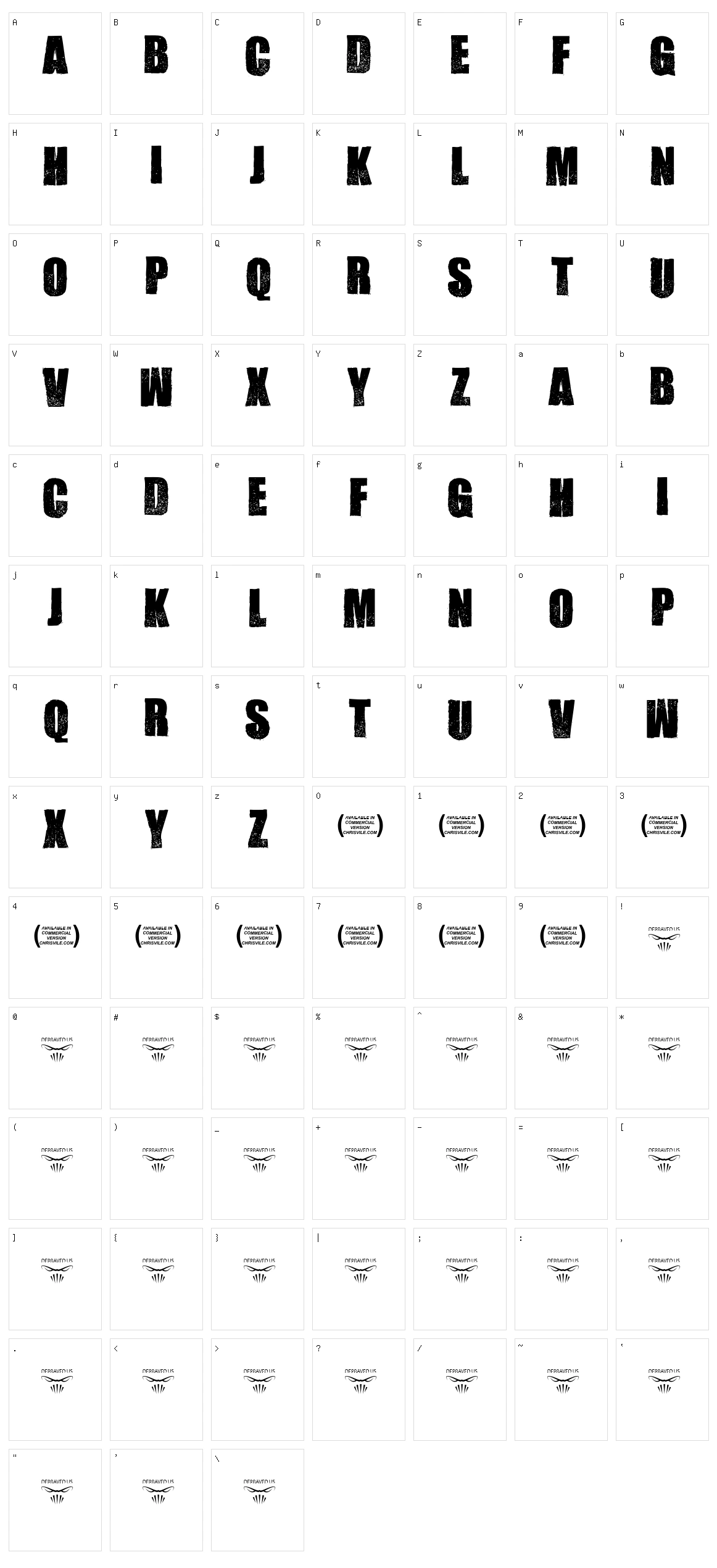
The free font Cook County Jailhouse is carefully designed by Font Monger, showcasing a thoughtful balance of creativity and usability and falls under the Eroded font style. When you download the ZIP file, it contains only 105.24 KB of font files, making it lightweight and quick to download. Please review the license details below to understand permitted usage and distribution rights. If license information is not available, we recommend using this font for personal projects only or contacting the author directly for commercial usage permissions.